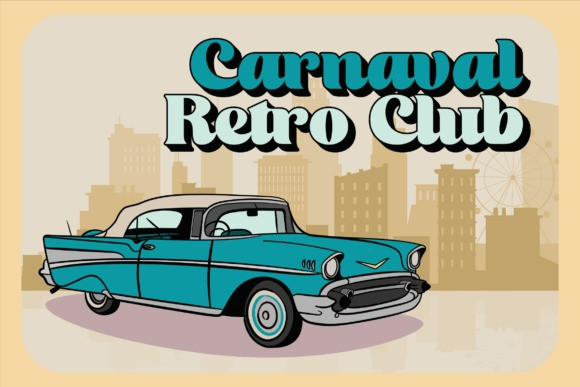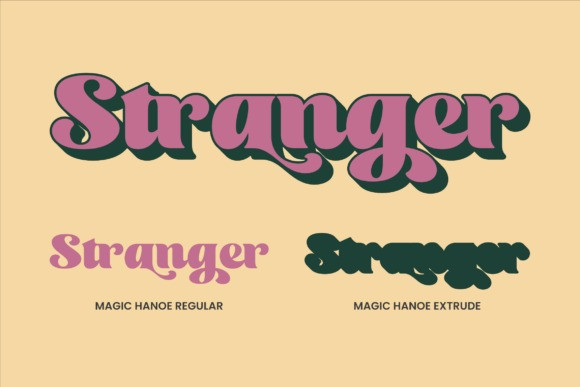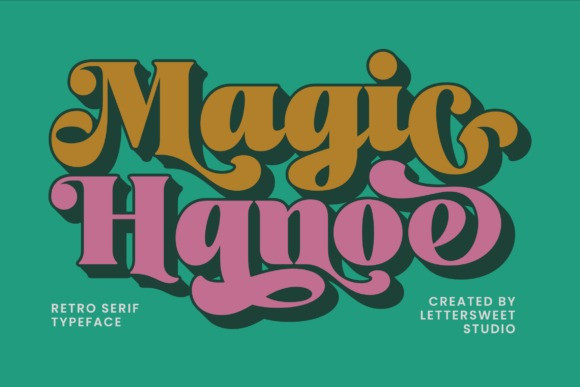
Magic Hanoe Font
Magic Hanoe Font, a captivating retro serif font full of personality and flair! Created by Lettersweet Studio, this typeface features expressive curves, bold strokes, and playful vintage vibes that will make your designs truly stand out.
Perfect for creative projects like vintage posters, unique logos, product packaging, album covers, and retro-inspired branding. Magic Hanoe combines nostalgic style with contemporary energy, bringing a memorable touch to any visual concept.